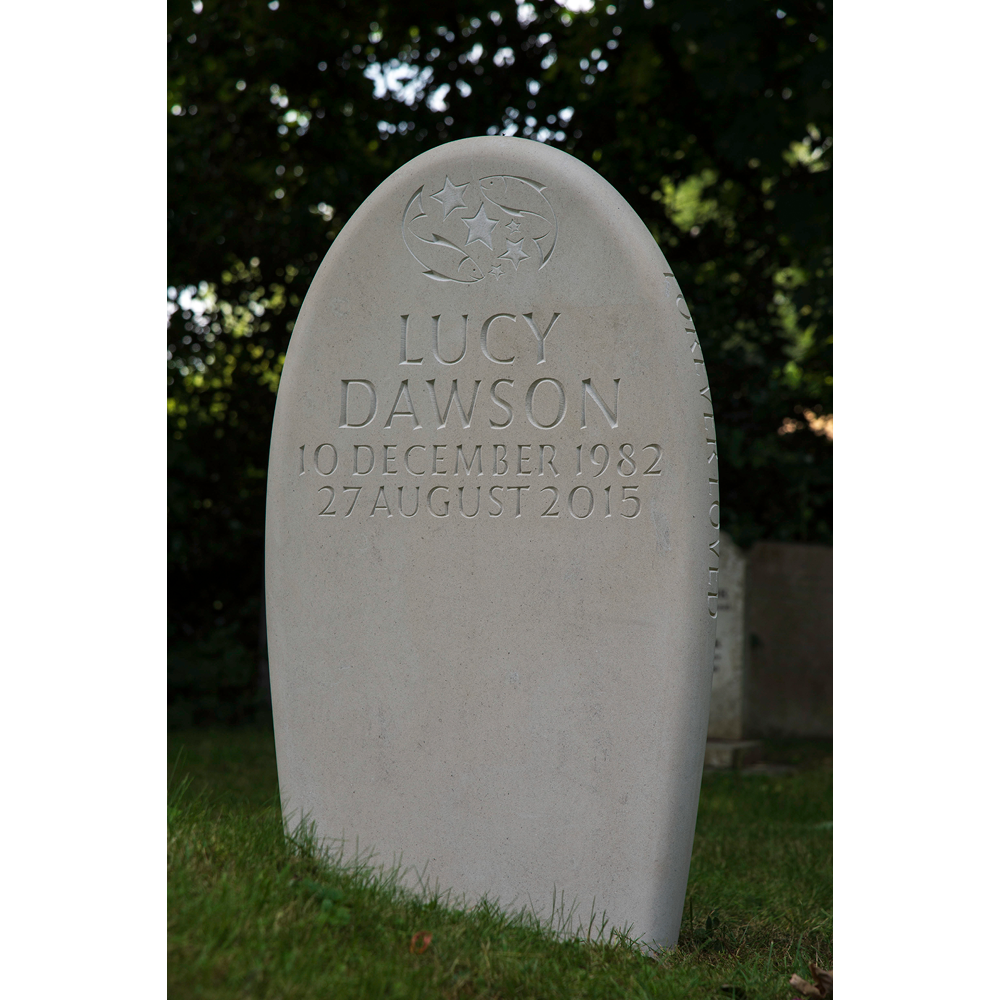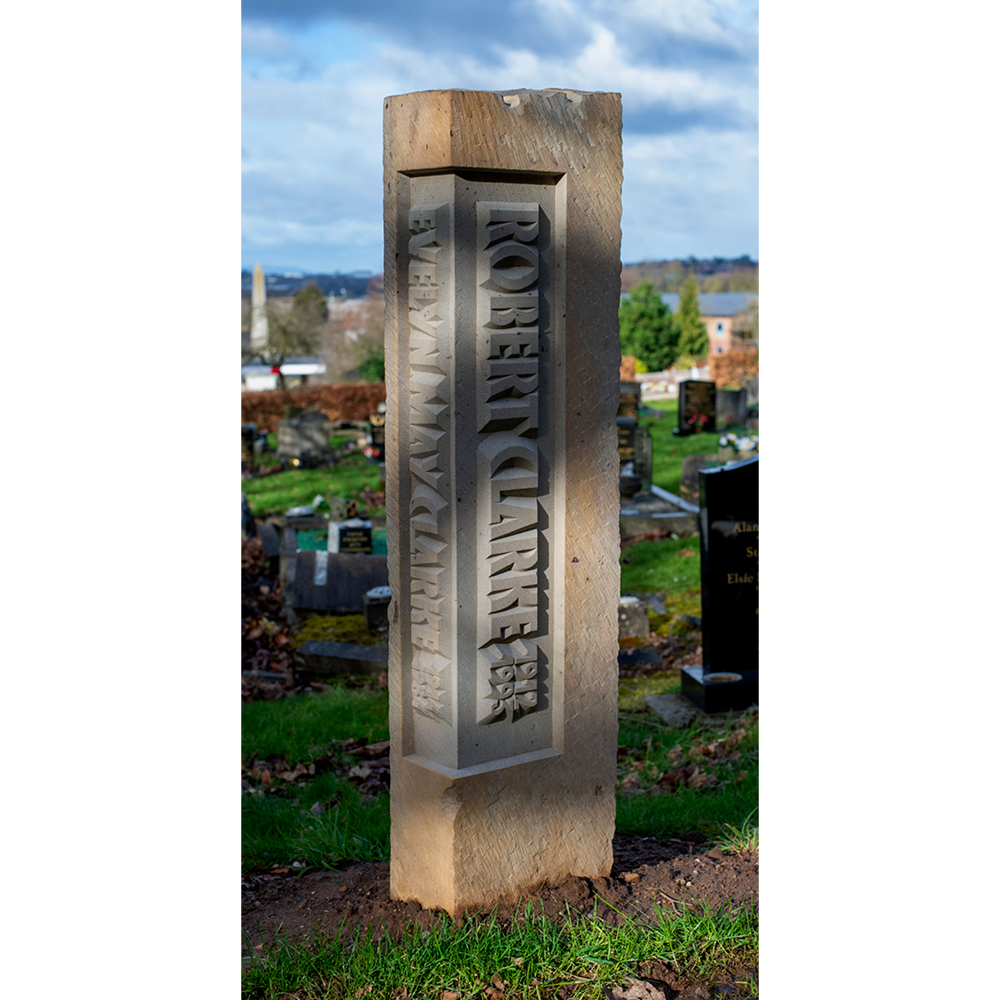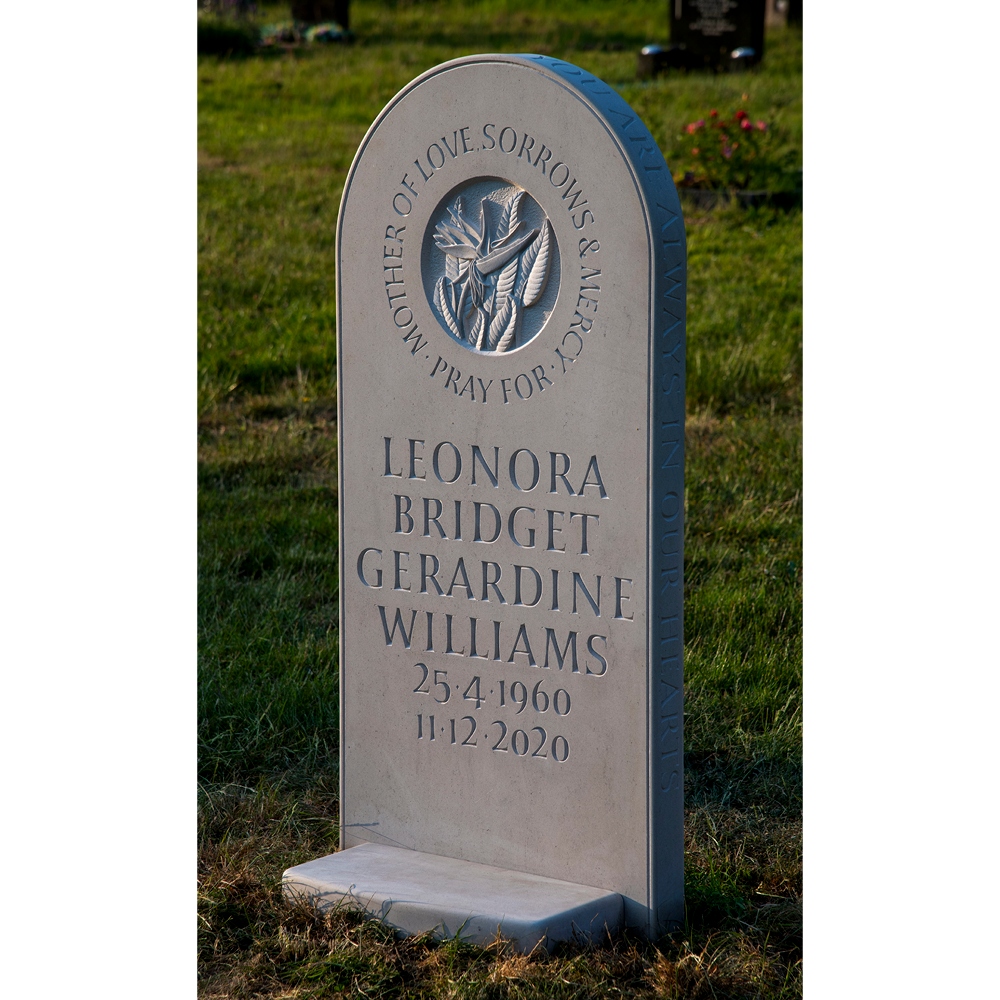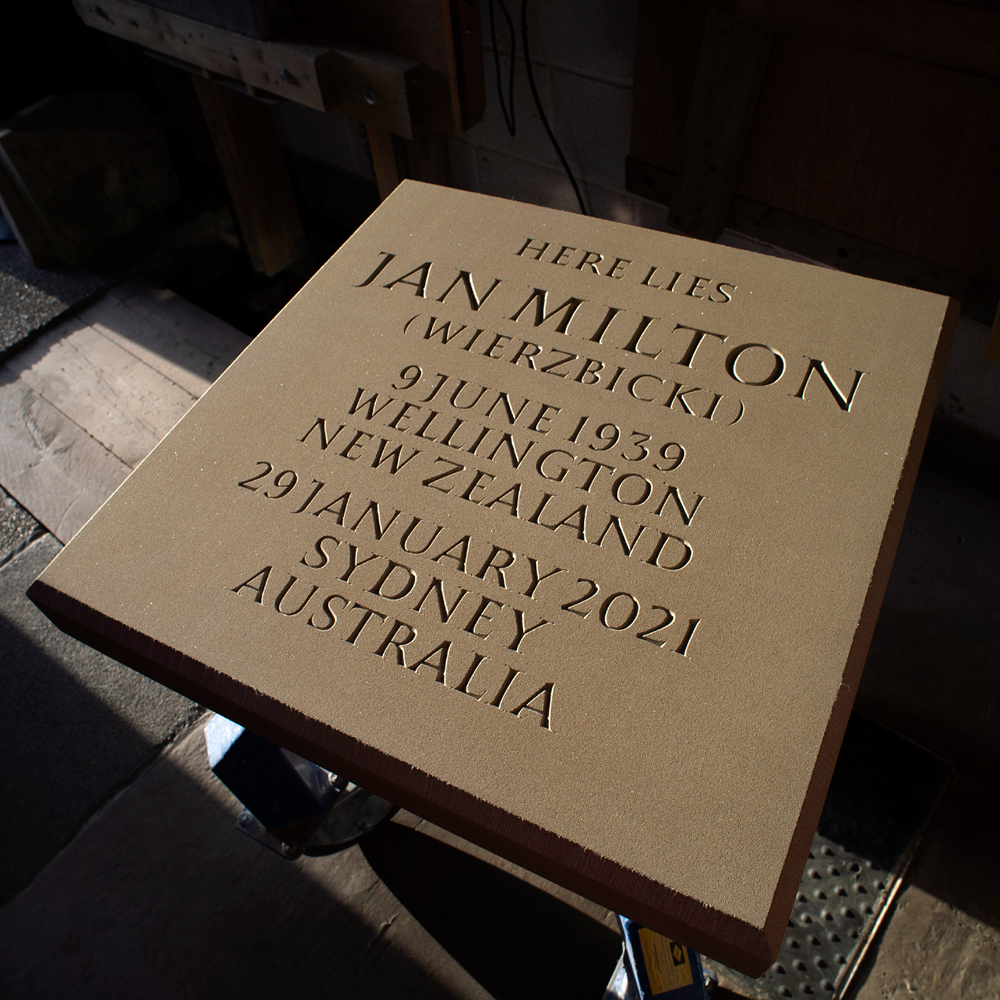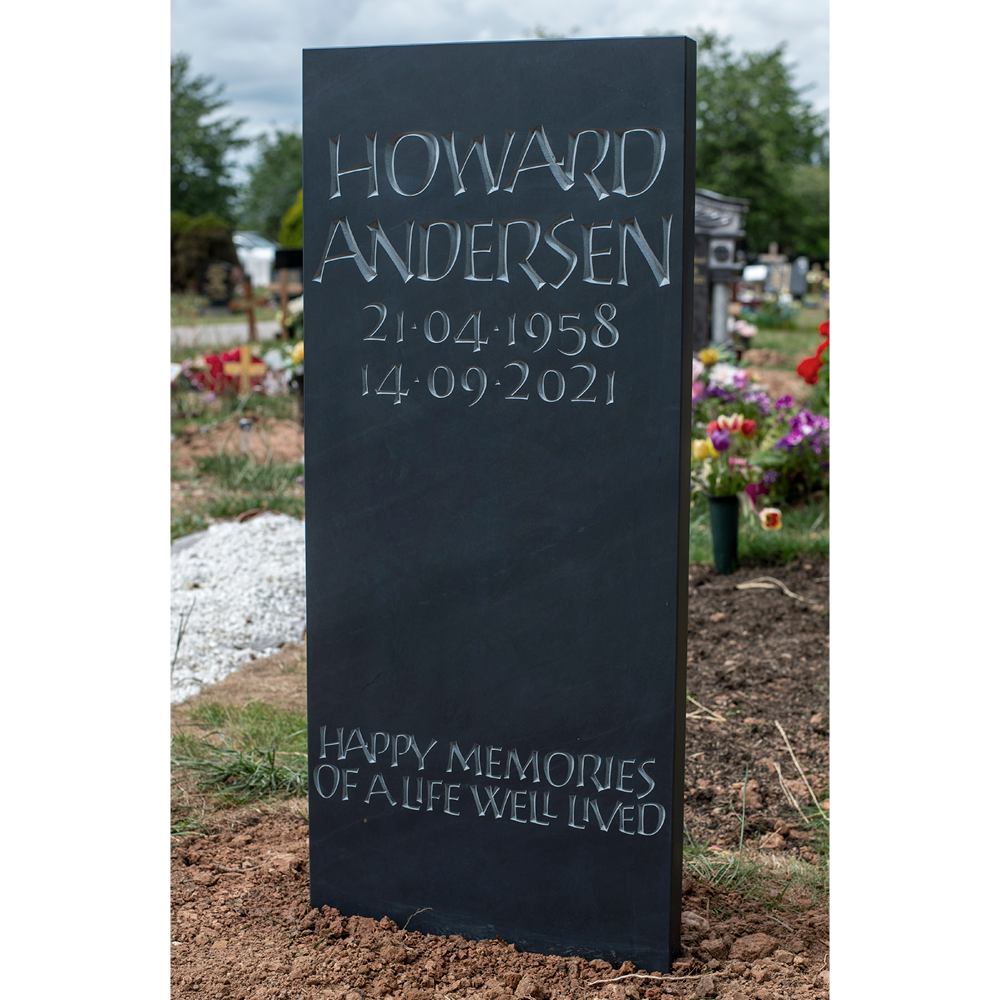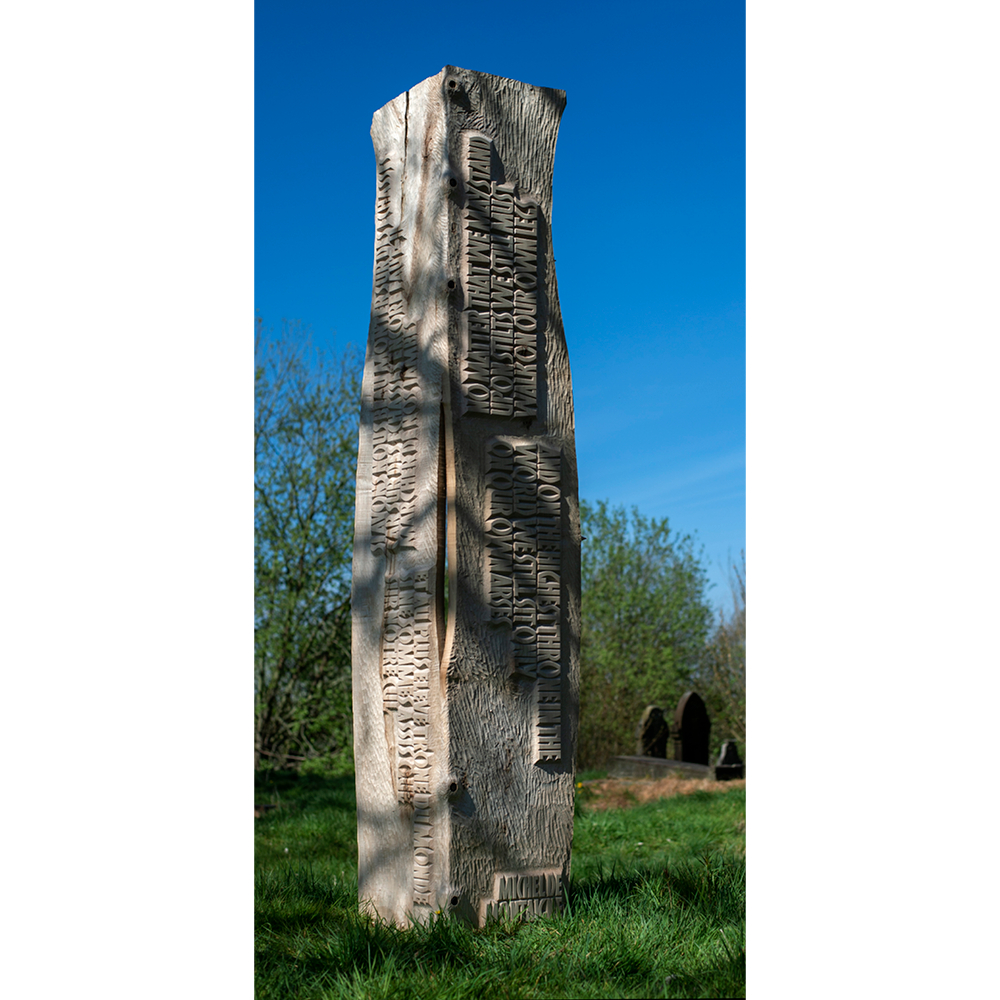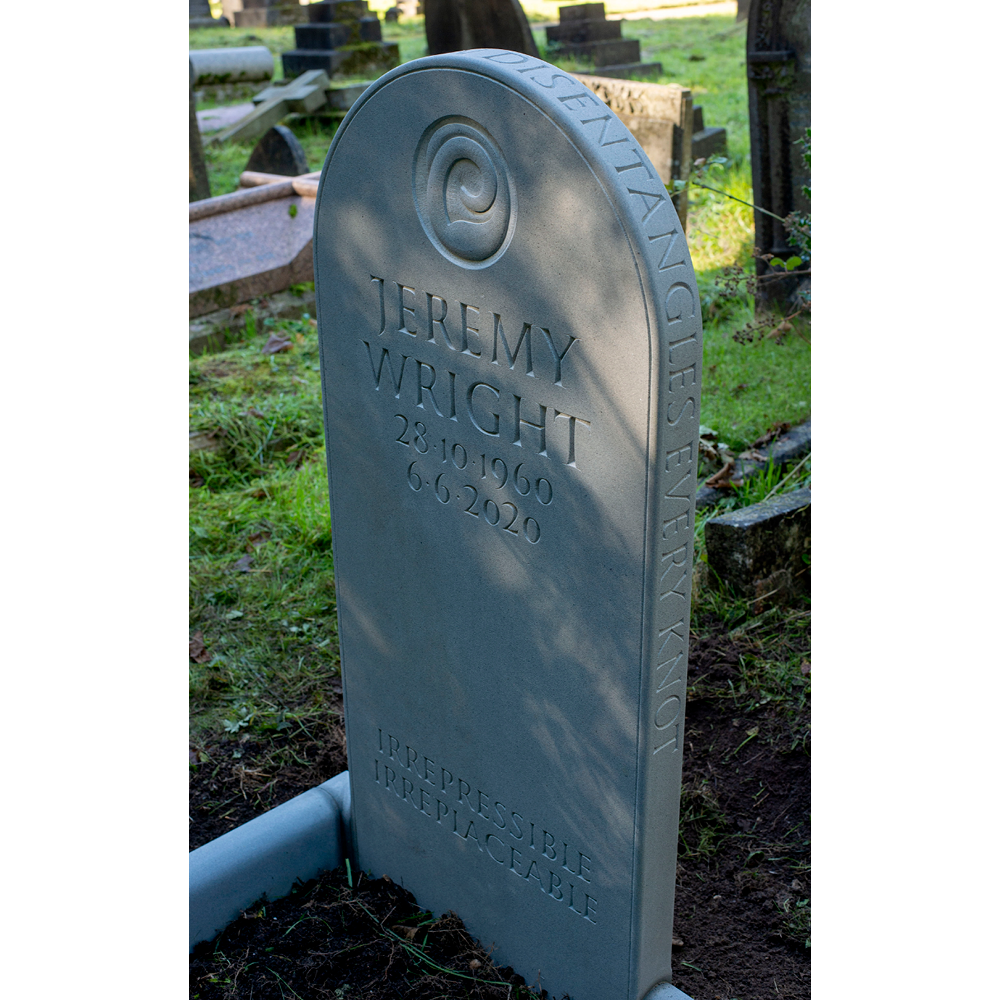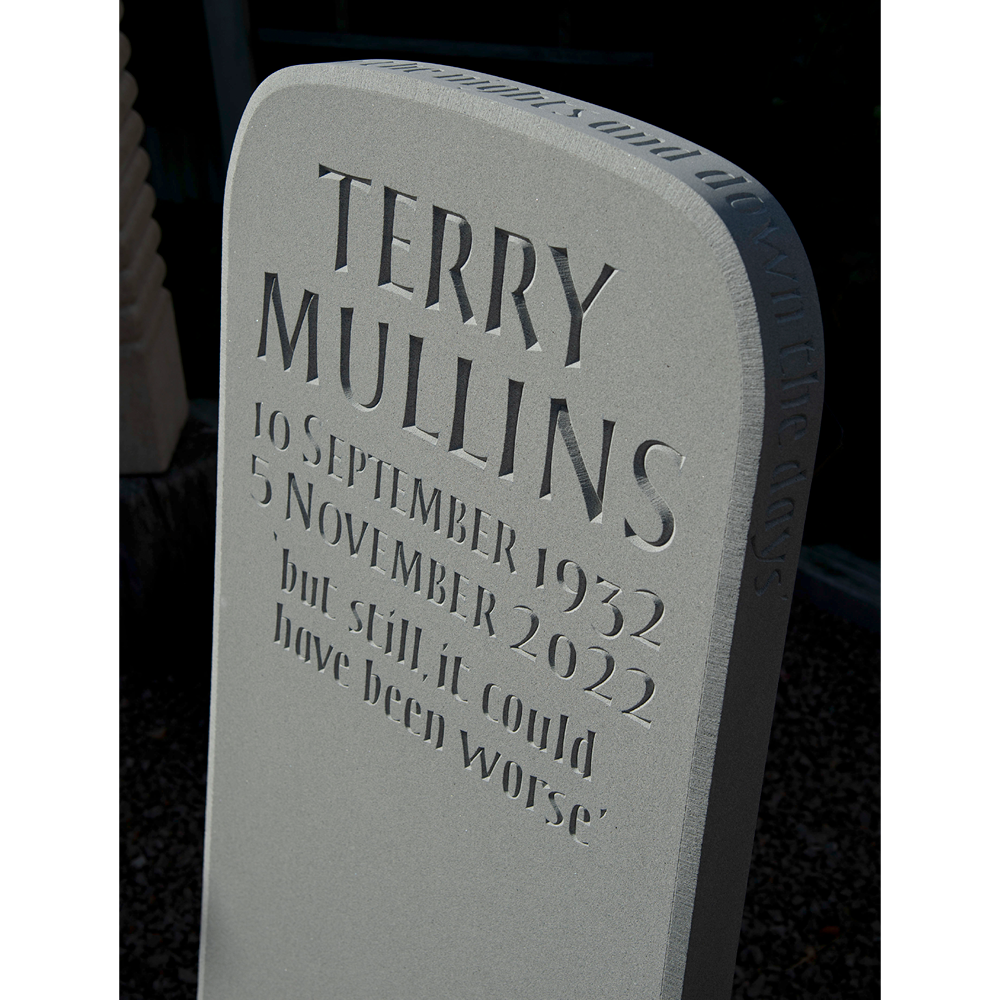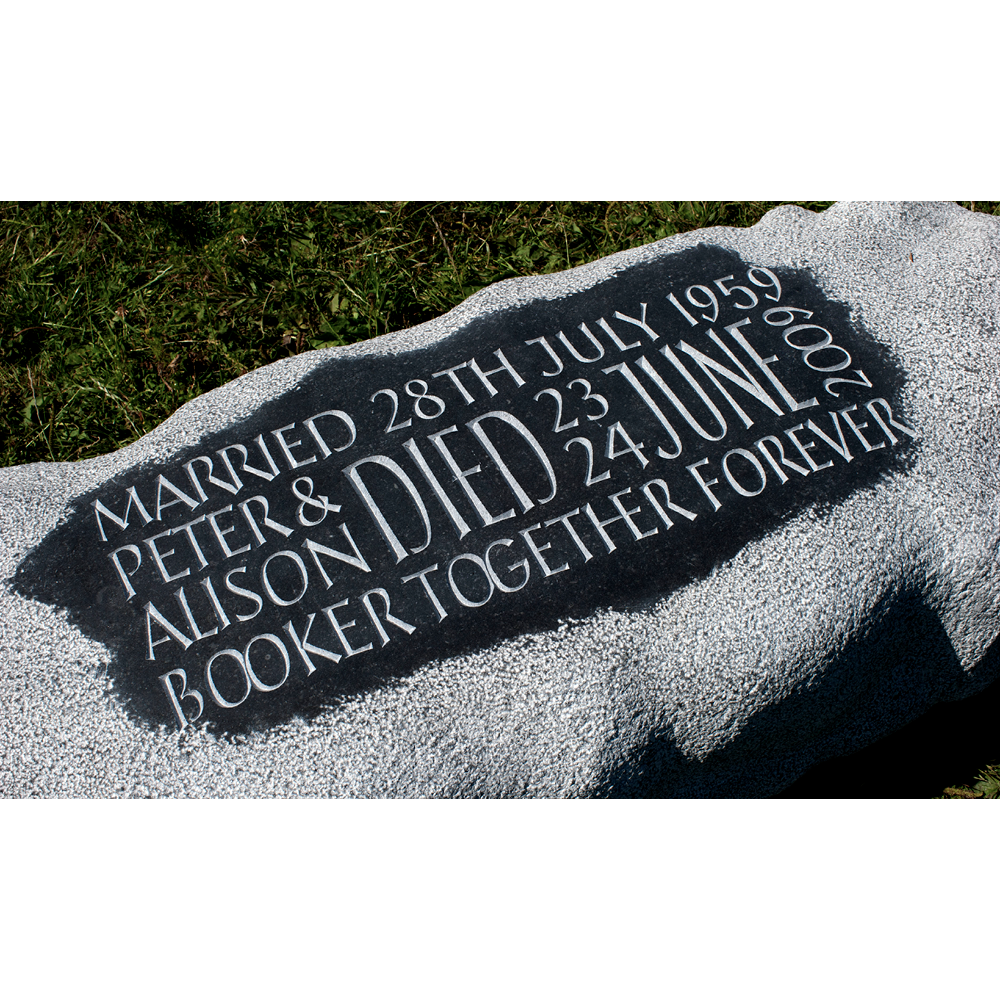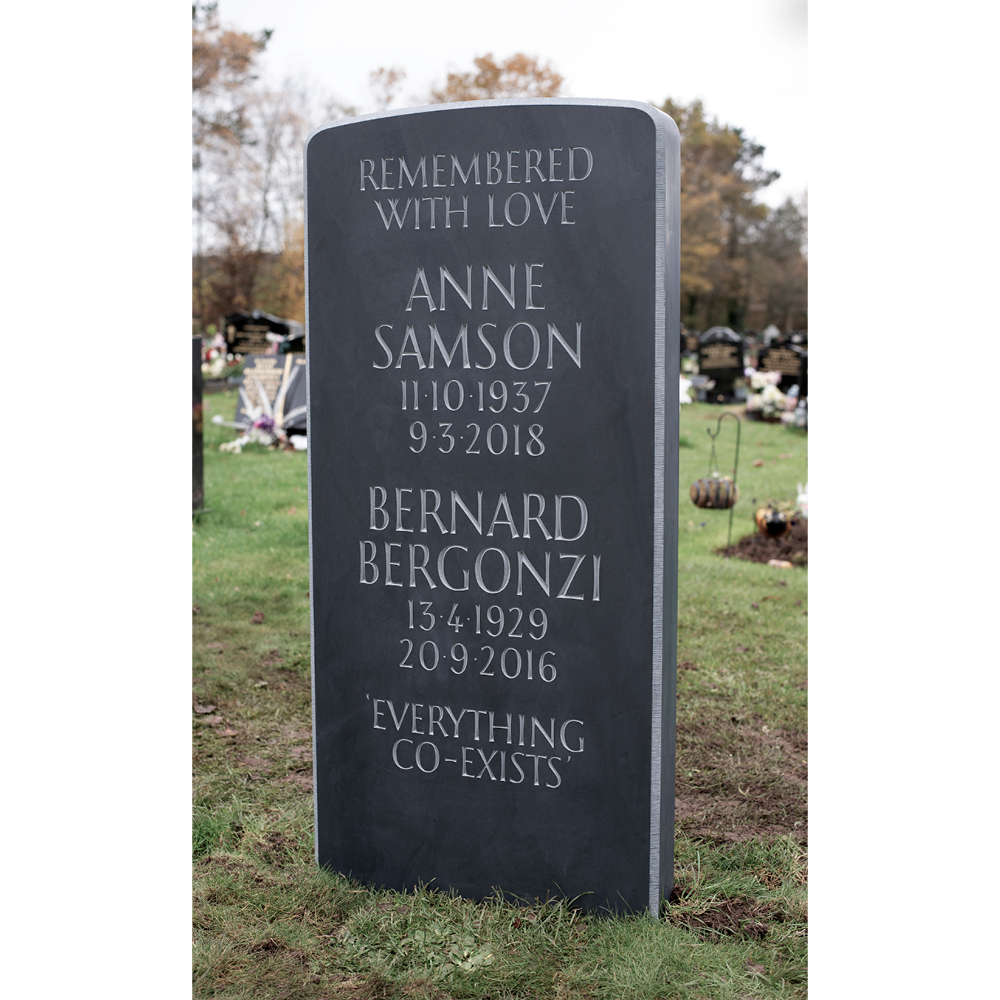
I was first introduced to letter carving through Classical Roman letter forms. These forms resonate with me now as much as they did when I first encountered them.
My initial background is in documentary photography, working for newspapers and magazines. Returning to education I gained a BA (Hons) and MA in Fine Art, concentrating on sculpture. I have been carving letters and making sculpture since 2006, both producing my own work and working as an assistant to John Neilson, Gary Breeze and Peter Randall-Page amongst others. I am a visiting lecturer at the University of Wolverhampton, teaching bronze casting and stone carving. I have worked on numerous major public art projects throughout the UK including the V&A grand entrance donor recognition scheme, ‘The One and the Many’, London; ‘Timeline Serpentine Path’, Durlston Country Park; ‘Barry Poem’, Barry, South Wales. My current work includes memorials, plaques, sundials, signs and sculptural pieces, in slate, stone, granite, wood, bronze, steel and ceramic.